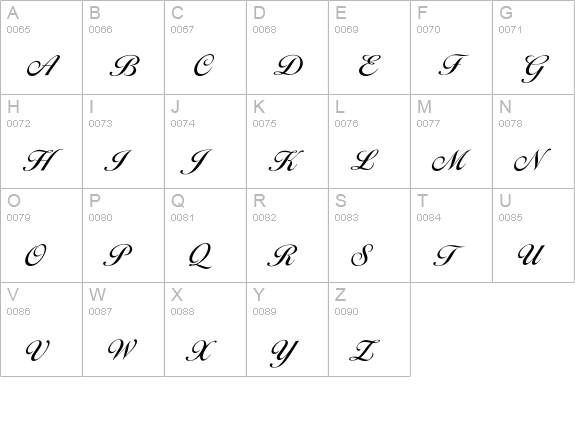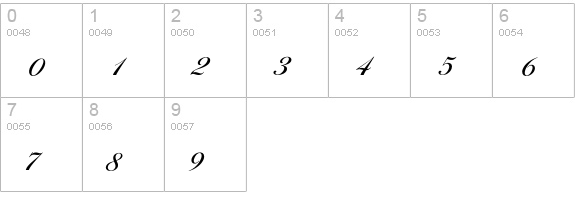
Iballantines-Medium Font Details
Iballantines-Medium is a balanced, medium-weight variant in the Iballantines typeface family \xE2\x80\x94 well suited to sub-headlines, navigation, and balanced editorial work.
Introducing Iballantines-Medium, a visually stunning font that effortlessly captures the essence of elegance and sophistication. With its perfect balance of modernity and timeless appeal, this font is the perfect choice for any project that requires a touch of refinement. Iballantines-Medium boasts clean lines and meticulously crafted letterforms, making it incredibly versatile and suitable for a wide range of design purposes. Whether you're working on a logo, a website, a poster, or any other creative endeavor, this font will undoubtedly elevate your work to new heights. Not only does Iballantines-Medium exude a sense of luxury and prestige, but it also offers a sense of freedom. Yes, you heard that right – this font is freely available to download at FontsMarket.com. Now, you can enjoy the beauty and elegance of Iballantines-Medium without breaking the bank. So, why wait? Unlock your creativity and explore the endless possibilities that Iballantines-Medium offers. Whether you're a professional designer or a passionate enthusiast, this font is sure to become your go-to choice for all your typographic needs. Download Iballantines-Medium now from FontsMarket.com and let your imagination run wild.